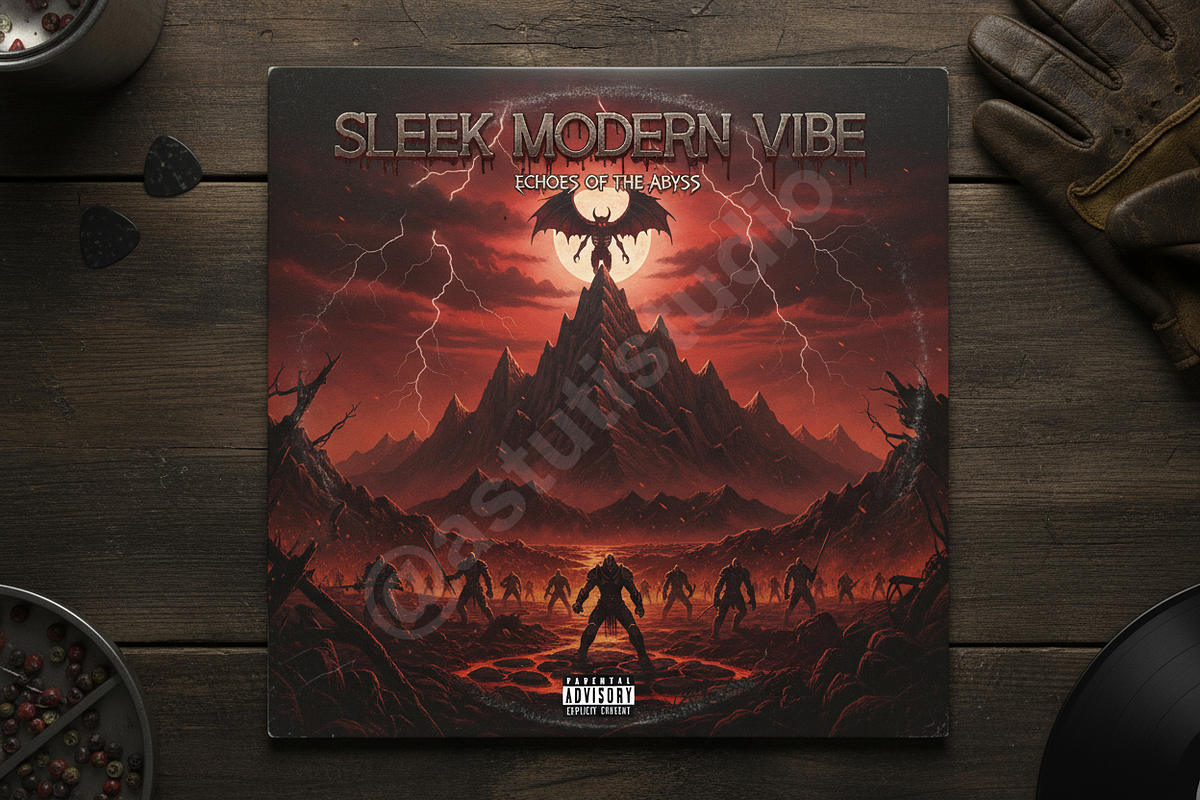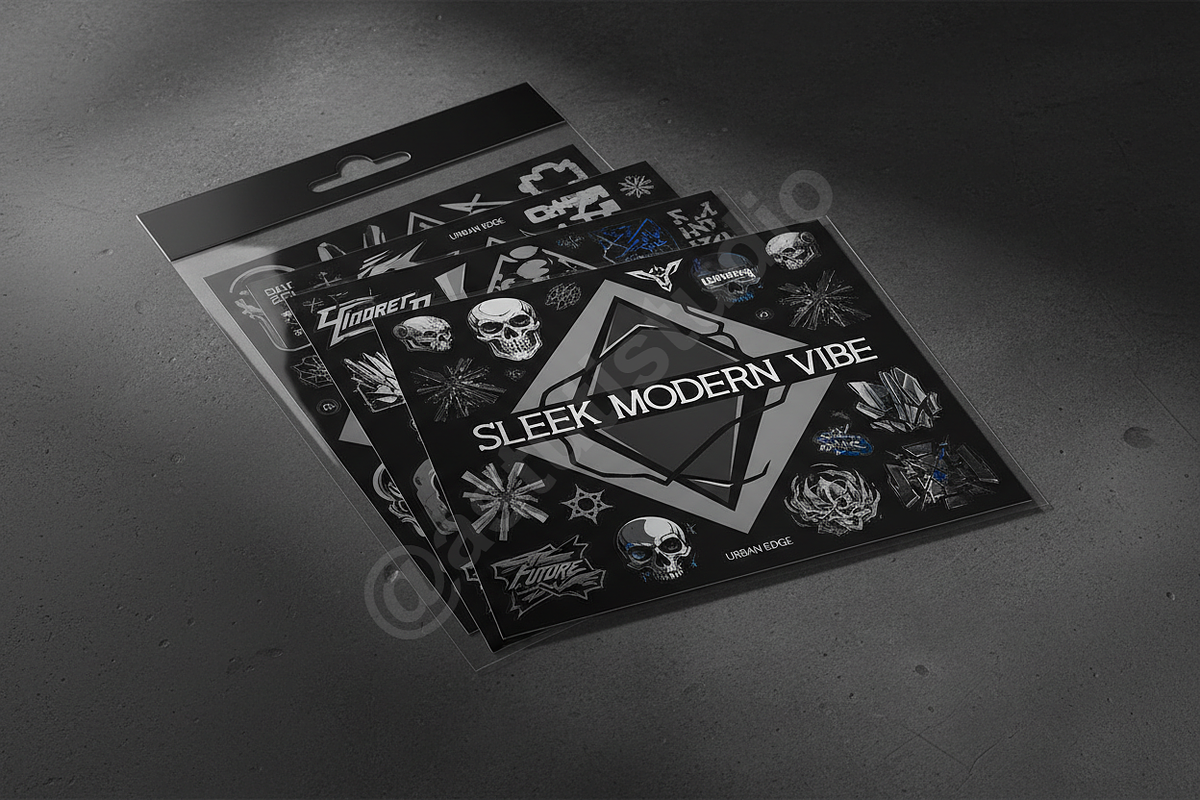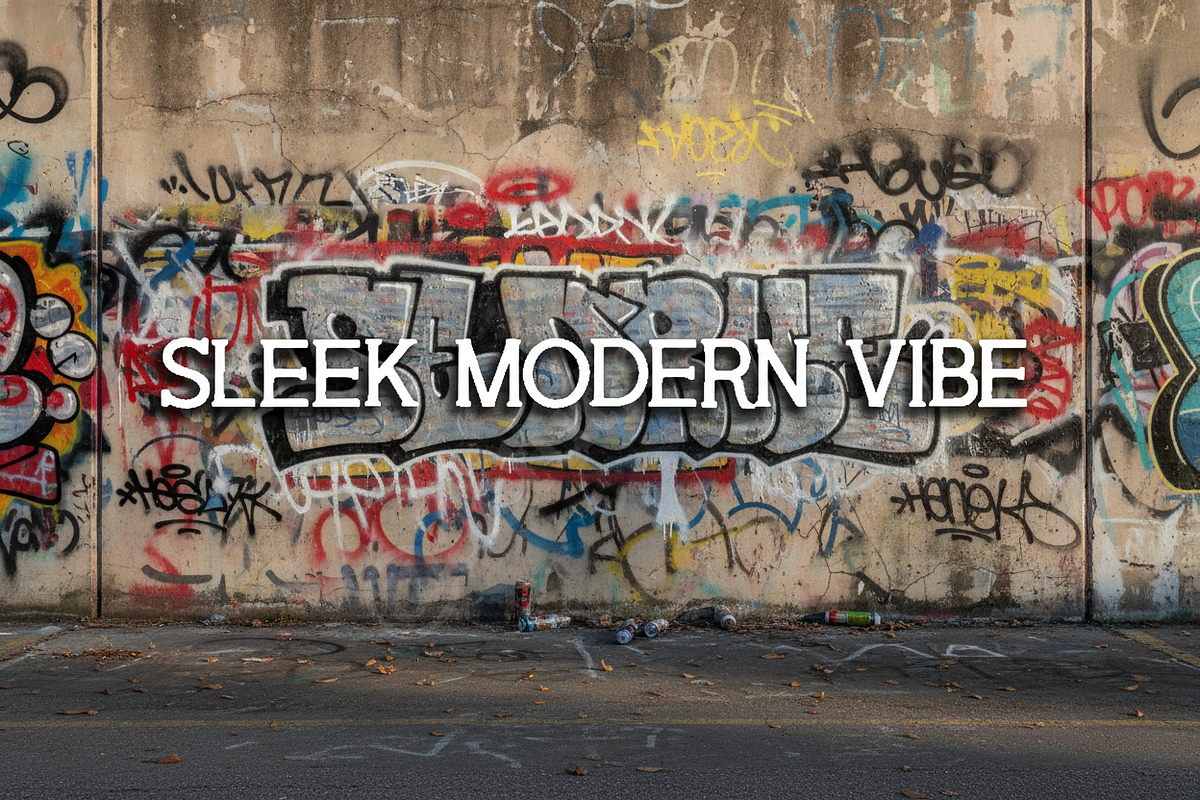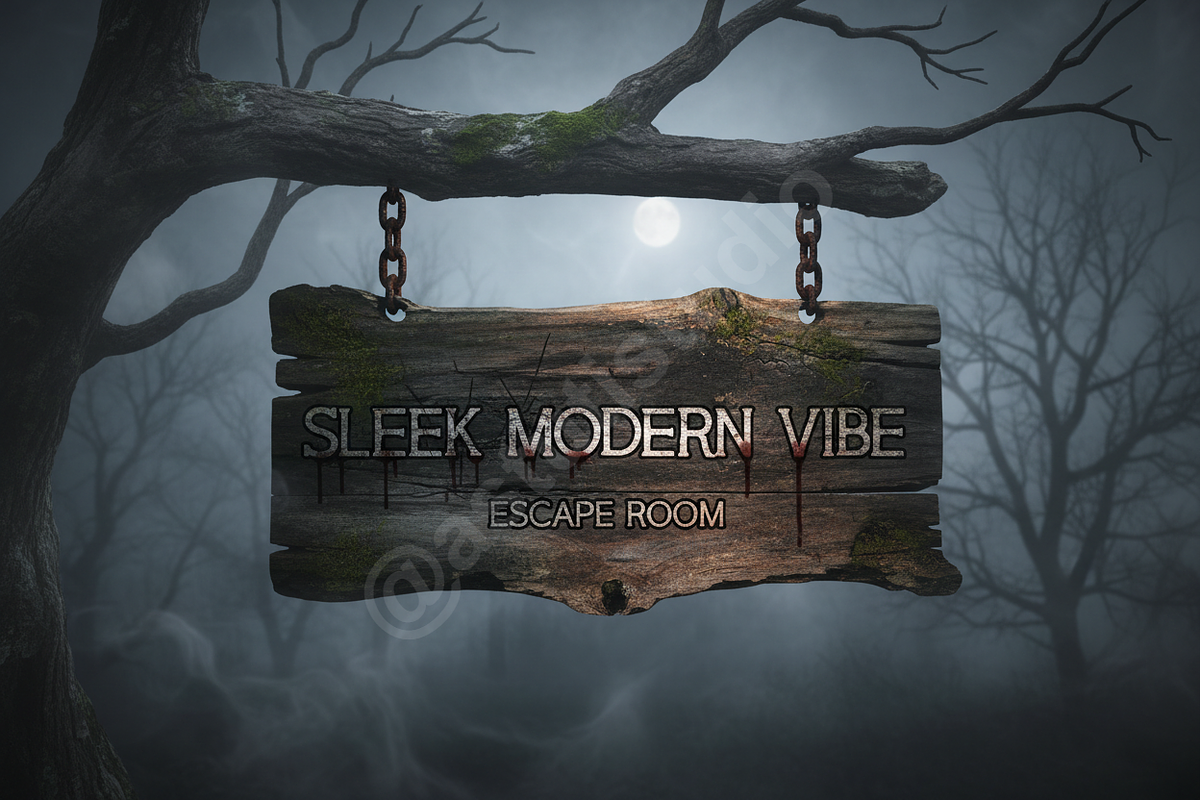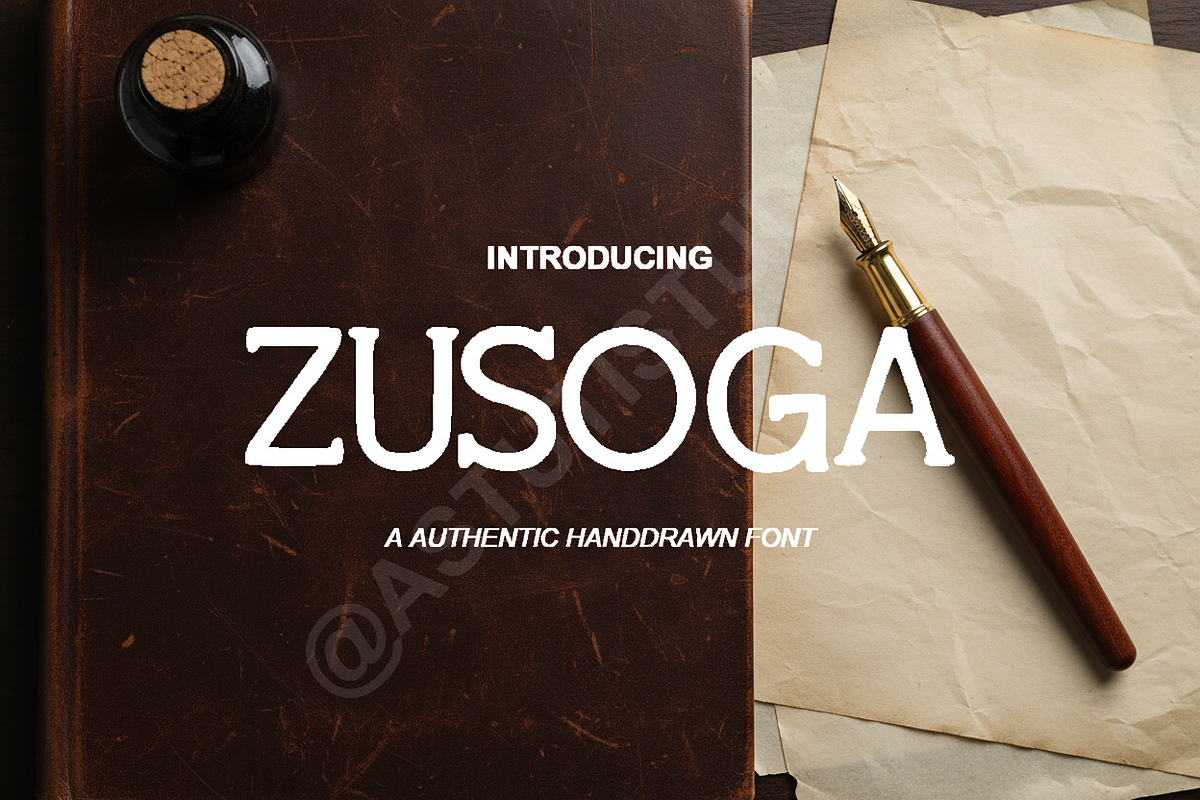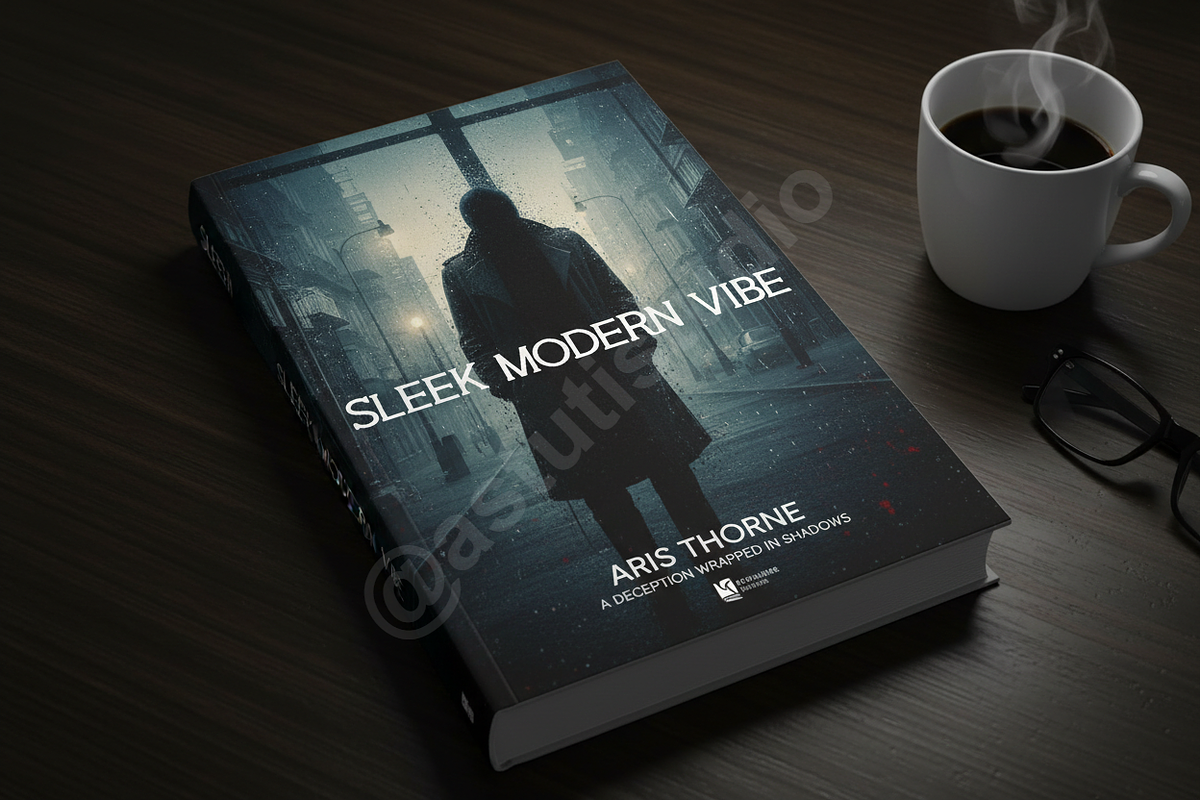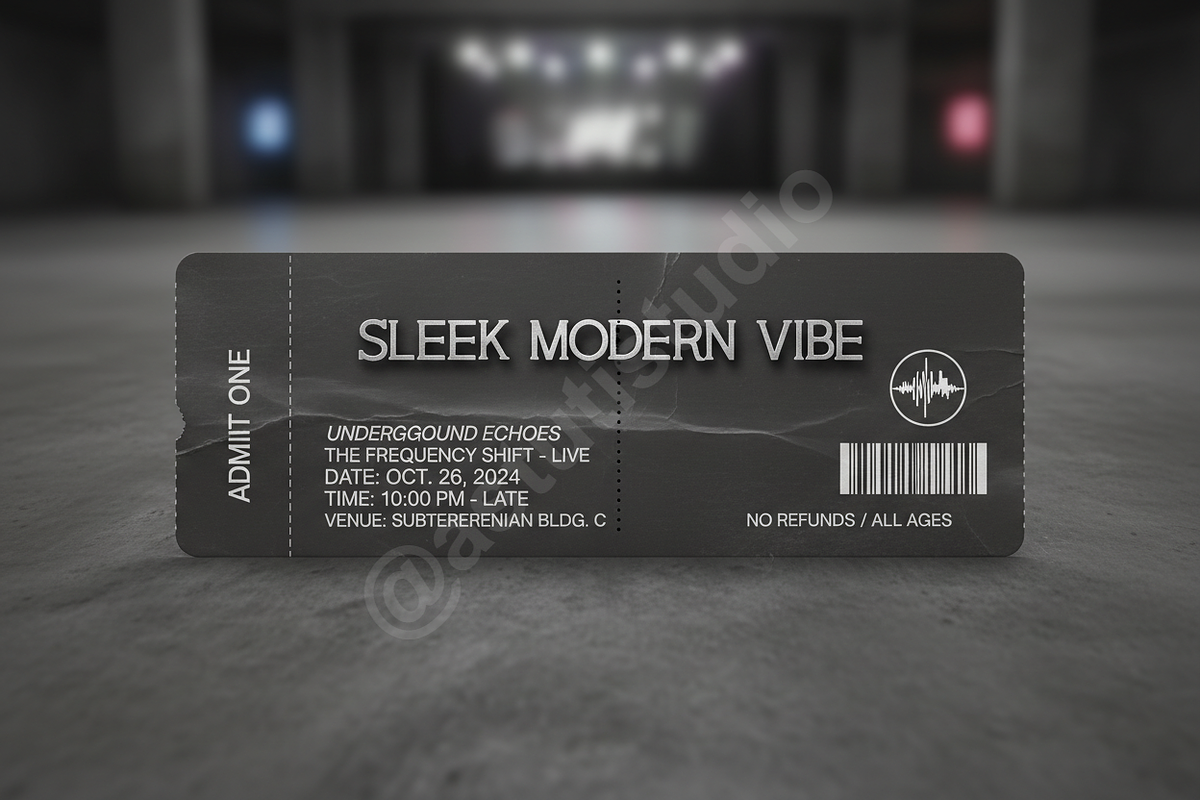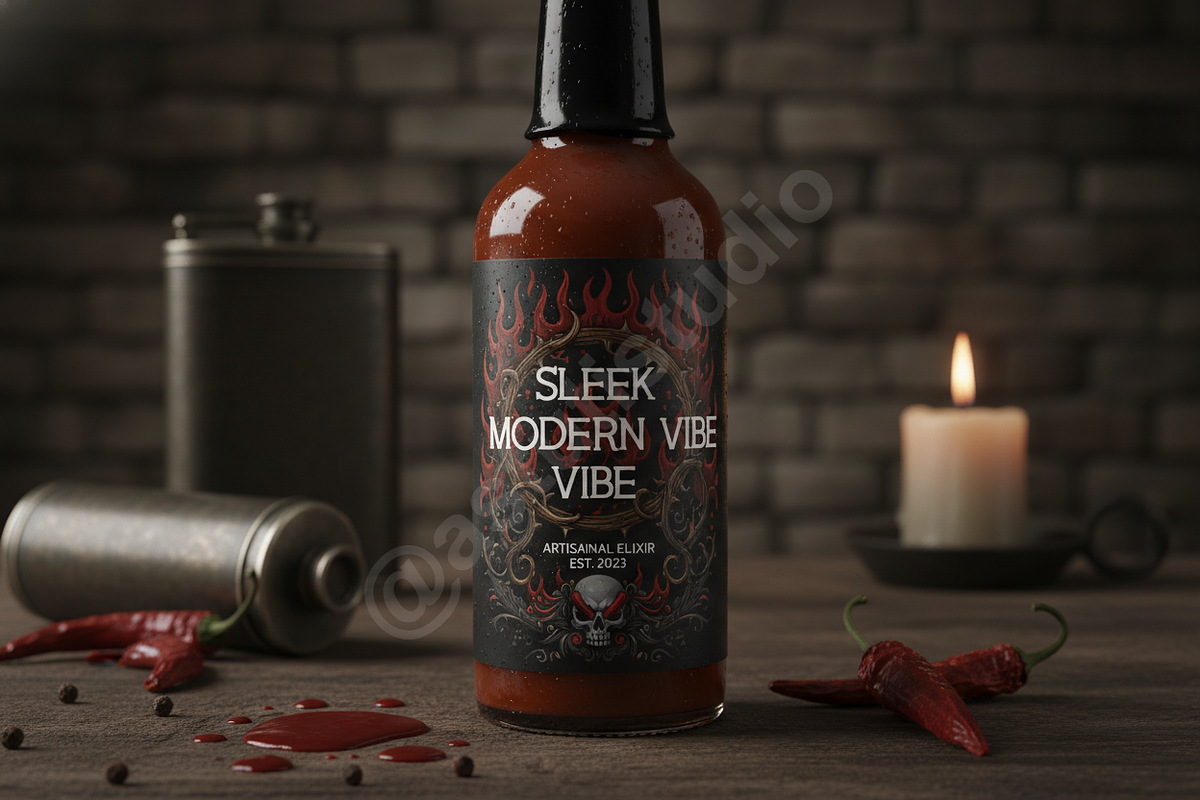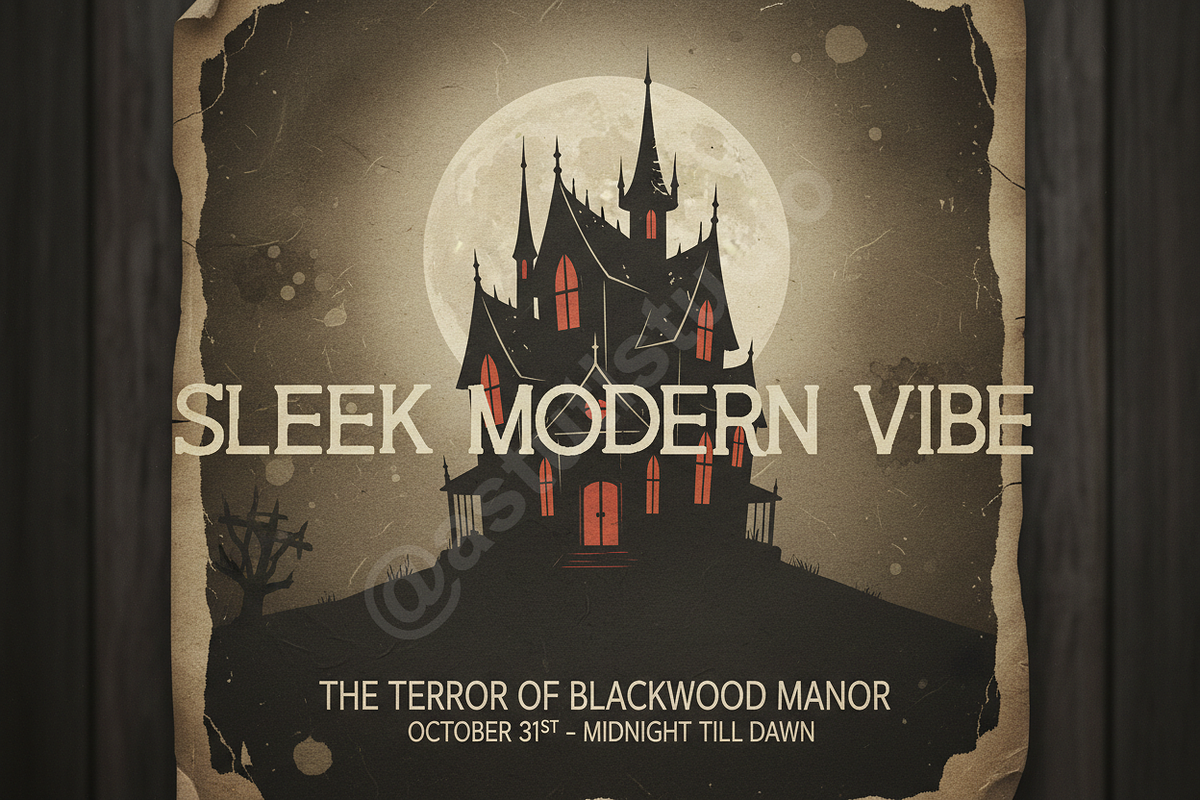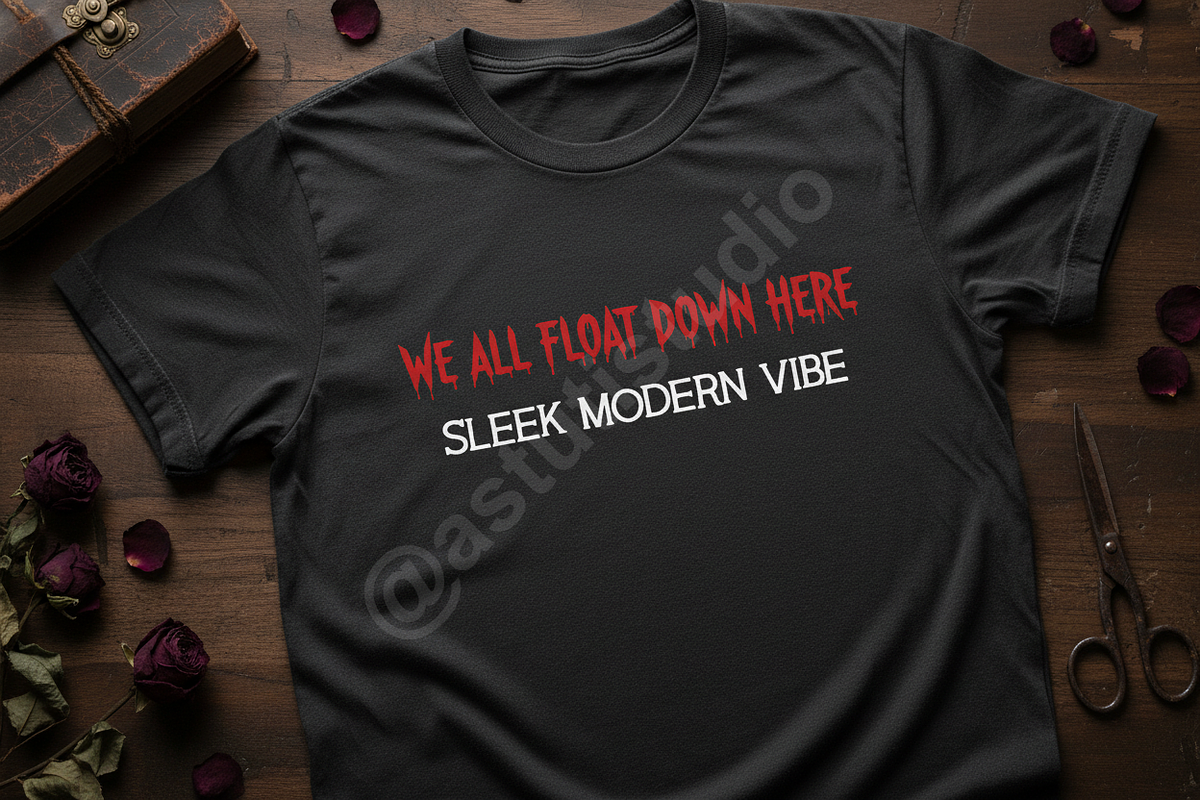
Zusoga - Luxury Modern Display Serif
Zusoga is a meticulously crafted modern display serif font designed to embody refinement and timeless luxury. Born from a collaboration between classic geometric structure and contemporary minimalism, Zusoga provides a sophisticated typographic voice perfect for brands that demand exclusivity. Its balanced letterforms and subtle contrast make it an indispensable tool for elevated design projects, whether setting the tone for a high-fashion campaign, enhancing luxury product packaging, or creating magnetic social media visuals.
- Opulent Versatility: Ideal for luxury branding, magazine mastheads, high-end invitations, and premium editorial layouts.
- Comprehensive Weight Range: Includes Thin, Regular, Medium, and Bold weights for maximum design flexibility and typographic hierarchy.
- High Legibility: Optimized for both striking large display titles and smaller, highly readable body copy in digital and print media.